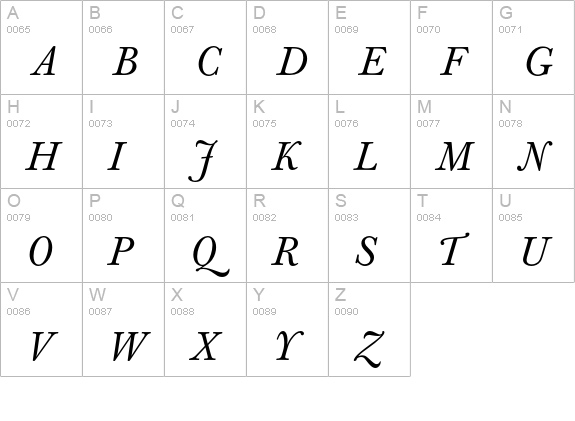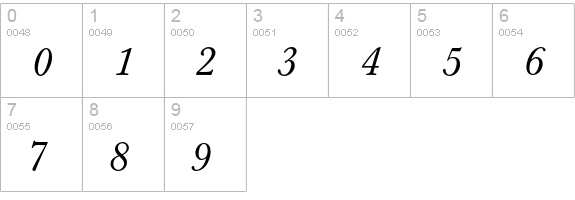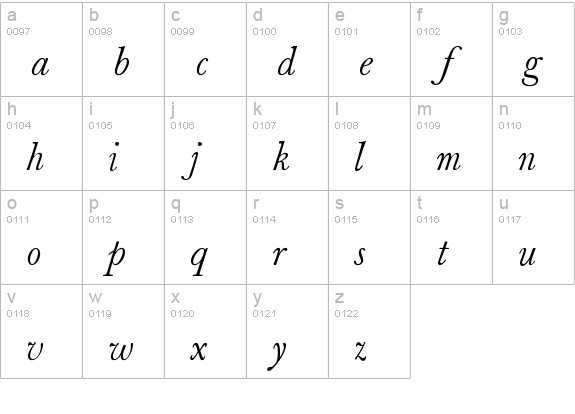
Berthold Baskerville Book Italic Font Details
Berthold Baskerville Book Italic font is a timeless and elegant typeface that exudes sophistication and charm. Its graceful italic design adds a touch of flair to any project, making it ideal for use in editorial layouts, branding materials, and more. The subtle curves and precise detailing of this font make it a versatile choice for both print and digital applications. What sets Berthold Baskerville Book Italic font apart is its seamless blend of tradition and modernity, offering a classic look with a contemporary twist. The font's refined appearance conveys a sense of refinement and professionalism, making it perfect for conveying a sense of elegance in your designs. Best of all, Berthold Baskerville Book Italic font is freely available to download at FontsMarket.com. Whether you're a seasoned designer looking for a reliable font or a newcomer exploring typography for the first time, this font is a valuable addition to your collection. Don't miss out on the opportunity to enhance your projects with the timeless beauty of Berthold Baskerville Book Italic font.